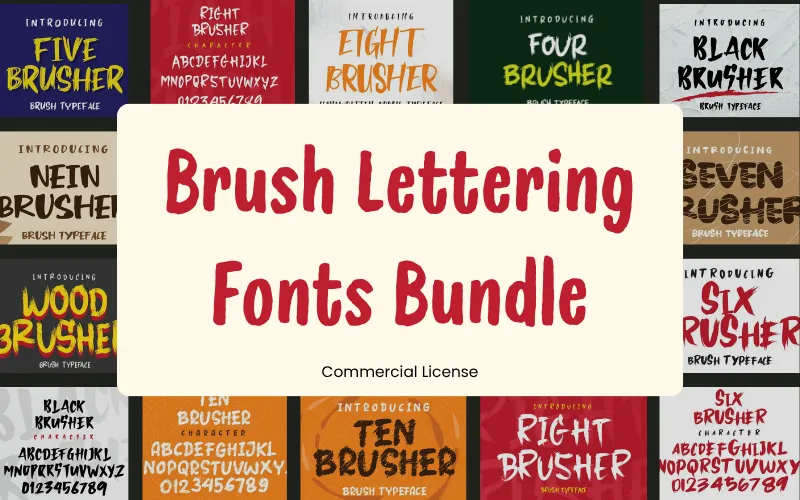
- 10 distinct brush & grunge lettering fonts
Key features
- Hand-lettered, textured brush styles for authentic, organic designs
- Versatile: great for logos, packaging, posters, social graphics, apparel, and more
- High-quality vector-ready fonts for crisp printing and scalable web use
- Carefully paired variations to mix-and-match for unique layouts